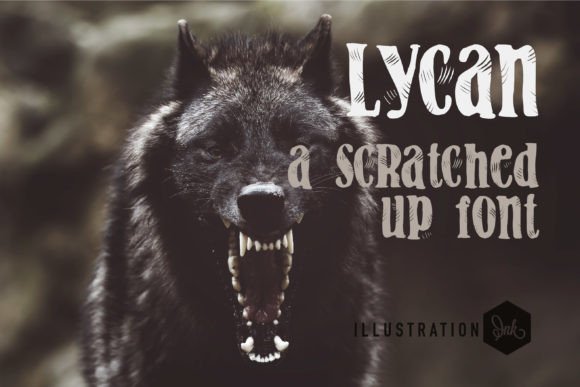
Are you ready to give your projects a haunting and eerie touch? Presenting Lycan Font - a spellbinding display font that exudes mystery and a dash of the supernatural. Created by the innovative minds at Illustration Ink, Lycan is not just a font; it's an experience that will transport your designs into a realm of darkness and intrigue.
Crafted with meticulous precision, Lycan's scratched-up texture adds a touch of grit and a vintage charm that's perfect for captivating your audience. Its bold and distinctive letterforms have a personality all their own, ready to cast a spell on any project they grace.
Whether you're designing posters for a haunted house, creating invitations for a Halloween party, or adding a spooky twist to your branding, Lycan is your go-to font. Its versatility allows it to effortlessly blend with various design styles, bringing a touch of the mystical to any project.
Unleash your creativity and let Lycan take you on a thrilling adventure. Its eerie charm will leave a lasting impression, making your designs truly unforgettable. Experience the dark allure of Lycan today and let your projects howl with delight!